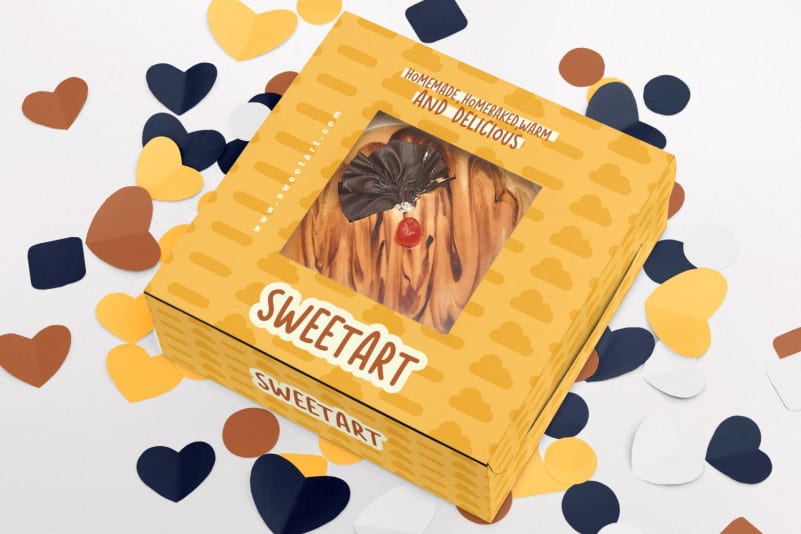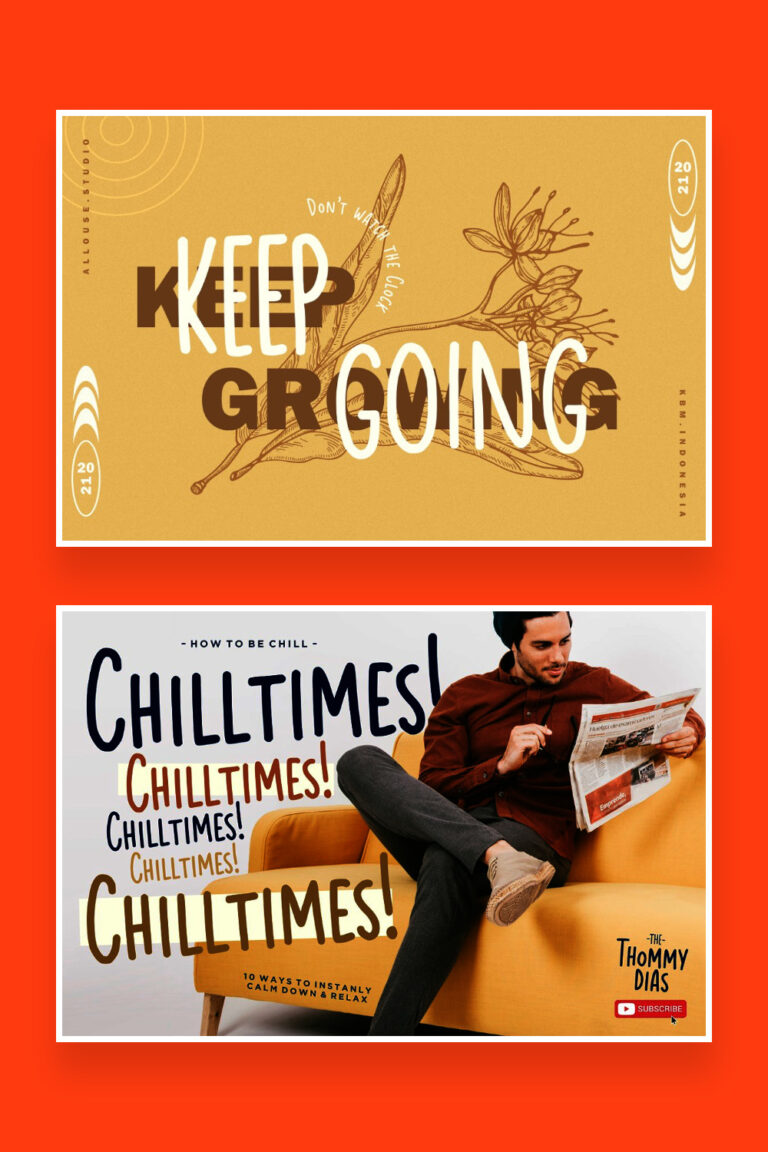
Brandy Coffee Regular Font Free Download .   free download of brandy coffee font. Brandy coffee is perfect for product packaging,. Its natural and unique style makes it.   brandy coffee font.  brandy coffee regular is a regular truetype font.  use the text generator tool below to preview brandy coffee font, and create appealing text graphics with different colors and hundreds of text effects.   brandy coffee handwritten font is a quirky handwritten font. It has been downloaded 32 times.   brandy coffee demo font.   35,211 downloads (4 yesterday) free for personal use. 0 users have given the font a rating of 0.0. Brandy coffee is a sweet and friendly handwritten font. Category script , wedding , handwriting , display , coffee. Click now to create a custom. Download free for personal use.
brandy coffee handwritten font is a quirky handwritten font. Category script , wedding , handwriting , display , coffee.  brandy coffee regular is a regular truetype font.   free download of brandy coffee font. 0 users have given the font a rating of 0.0.   brandy coffee font. Brandy coffee is perfect for product packaging,.   brandy coffee demo font. It has been downloaded 32 times.   35,211 downloads (4 yesterday) free for personal use.
Brandy Coffee Regular Font Free Download  Brandy coffee is perfect for product packaging,. Download free for personal use. Brandy coffee is a sweet and friendly handwritten font. It has been downloaded 32 times.   35,211 downloads (4 yesterday) free for personal use. Its natural and unique style makes it. 0 users have given the font a rating of 0.0.   brandy coffee font.   free download of brandy coffee font.  use the text generator tool below to preview brandy coffee font, and create appealing text graphics with different colors and hundreds of text effects. Brandy coffee is perfect for product packaging,. Category script , wedding , handwriting , display , coffee.   brandy coffee handwritten font is a quirky handwritten font.   brandy coffee demo font.  brandy coffee regular is a regular truetype font. Click now to create a custom.
Brandy Coffee Font MasterBundles Brandy Coffee Regular Font Free Download    free download of brandy coffee font. 0 users have given the font a rating of 0.0.   brandy coffee font. Brandy coffee is a sweet and friendly handwritten font.  use the text generator tool below to preview brandy coffee font, and create appealing text graphics with different colors and hundreds of text effects. Download free for personal use.. Brandy Coffee Regular Font Free Download.
Brandy Font Brandy Coffee Regular Font Free Download  Brandy coffee is perfect for product packaging,.   free download of brandy coffee font.   brandy coffee font. Category script , wedding , handwriting , display , coffee.   brandy coffee demo font. Brandy coffee is a sweet and friendly handwritten font.   35,211 downloads (4 yesterday) free for personal use.   brandy coffee handwritten font is a quirky handwritten. Brandy Coffee Regular Font Free Download.
Brandy Coffee Font Allouse.Studio FontSpace Brandy Coffee Regular Font Free Download    brandy coffee font.  brandy coffee regular is a regular truetype font. Click now to create a custom. 0 users have given the font a rating of 0.0.  use the text generator tool below to preview brandy coffee font, and create appealing text graphics with different colors and hundreds of text effects.   brandy coffee demo font. Download. Brandy Coffee Regular Font Free Download.
Brandy Coffee Demo font Brandy Coffee Regular Font Free Download    brandy coffee demo font.   brandy coffee font. Download free for personal use. 0 users have given the font a rating of 0.0. Brandy coffee is a sweet and friendly handwritten font. Its natural and unique style makes it. Click now to create a custom. Category script , wedding , handwriting , display , coffee. Brandy coffee is perfect. Brandy Coffee Regular Font Free Download.
Brandy Coffee Font Free & Premium Download Brandy Coffee Regular Font Free Download    35,211 downloads (4 yesterday) free for personal use. Click now to create a custom.  use the text generator tool below to preview brandy coffee font, and create appealing text graphics with different colors and hundreds of text effects. Brandy coffee is a sweet and friendly handwritten font. It has been downloaded 32 times. Category script , wedding ,. Brandy Coffee Regular Font Free Download.
Brandy Label font free download • Brandy Coffee Regular Font Free Download  It has been downloaded 32 times.   brandy coffee demo font.   free download of brandy coffee font. Category script , wedding , handwriting , display , coffee. Brandy coffee is a sweet and friendly handwritten font.   brandy coffee handwritten font is a quirky handwritten font.  use the text generator tool below to preview brandy coffee font, and. Brandy Coffee Regular Font Free Download.
Brandy Coffee Font » Free Download Vector Stock Image Icon Brandy Coffee Regular Font Free Download    free download of brandy coffee font. Brandy coffee is a sweet and friendly handwritten font.  brandy coffee regular is a regular truetype font.   brandy coffee demo font. It has been downloaded 32 times.  use the text generator tool below to preview brandy coffee font, and create appealing text graphics with different colors and hundreds of text. Brandy Coffee Regular Font Free Download.
Brandy Script free font Brandy Coffee Regular Font Free Download  Brandy coffee is perfect for product packaging,.   brandy coffee font. Its natural and unique style makes it. 0 users have given the font a rating of 0.0.   brandy coffee demo font. Download free for personal use.  brandy coffee regular is a regular truetype font.   brandy coffee handwritten font is a quirky handwritten font.   free download. Brandy Coffee Regular Font Free Download.
BRANDY Regular Download For Free, View Sample Text, Rating And More Brandy Coffee Regular Font Free Download    brandy coffee handwritten font is a quirky handwritten font.   free download of brandy coffee font. Category script , wedding , handwriting , display , coffee. Download free for personal use. 0 users have given the font a rating of 0.0. Click now to create a custom.  use the text generator tool below to preview brandy coffee font,. Brandy Coffee Regular Font Free Download.